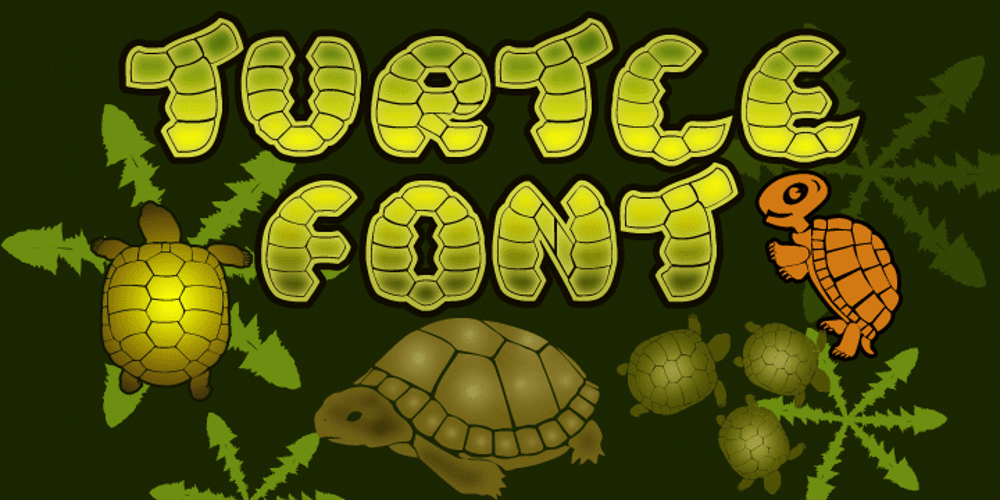
Turtle
Turtle font
Turtle Font Family was designed by published by Otto Maurer. Turtle contains 5 styles and family package options. Turtle Font is a special reptilica Font for all Turtle Fans. It is dedicated to my two little Panther-Turtles